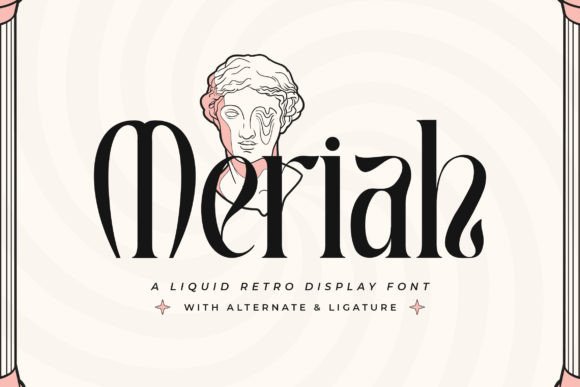
Dive into the world of captivating visuals with "Meriah," a display font family that exudes retro charm and modern flair. Its fluid letterforms dance across the page, evoking a sense of nostalgia while maintaining a contemporary edge. Unleash your creativity and craft eye-catching headlines, captivating posters, vibrant album covers, and more.
"Meriah" isn't just a font; it's a journey through time, a gateway to an era where colors pop and curves ignite imagination. Its dynamic structure adds a touch of playfulness to your designs, making them impossible to ignore. Whether you're designing for a vintage-inspired project or seeking a font with a unique personality, "Meriah" is your perfect companion.
With its retro aesthetic and modern sensibilities, "Meriah" is a versatile font that adapts to various design styles. Its bold presence commands attention, making it ideal for headlines that demand to be seen. The flowing letterforms add a touch of elegance to posters, creating an unforgettable visual experience. And when it comes to album covers, "Meriah" takes center stage, transforming your music into a visual masterpiece.
But "Meriah" isn't just limited to these applications. Its versatility extends to branding, packaging, and even web design. Its distinct character adds a touch of intrigue to logos and branding elements, making your brand stand out from the crowd. On packaging, "Meriah" transforms ordinary products into works of art, capturing the attention of potential customers. And in the digital realm, "Meriah" elevates website designs, creating a user experience that's both engaging and memorable.
So, embark on a creative journey with "Meriah," a font that captures the essence of retro charm while embracing the vibrancy of modern design. Its fluid letterforms, bold presence, and versatility make it the perfect choice for designers seeking to create captivating visuals that leave a lasting impression. Choose "Meriah" and unlock the gateway to a world of creative possibilities.